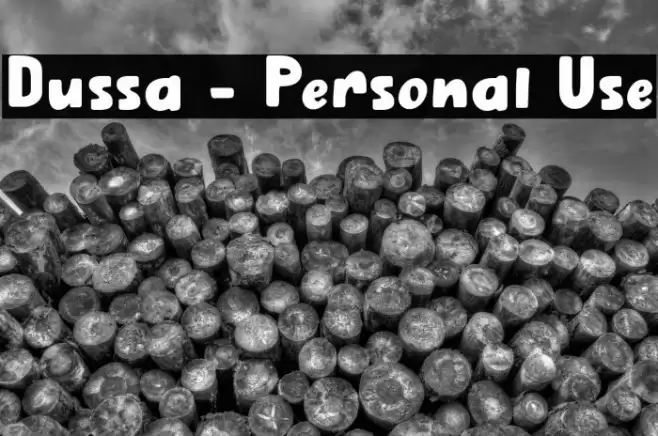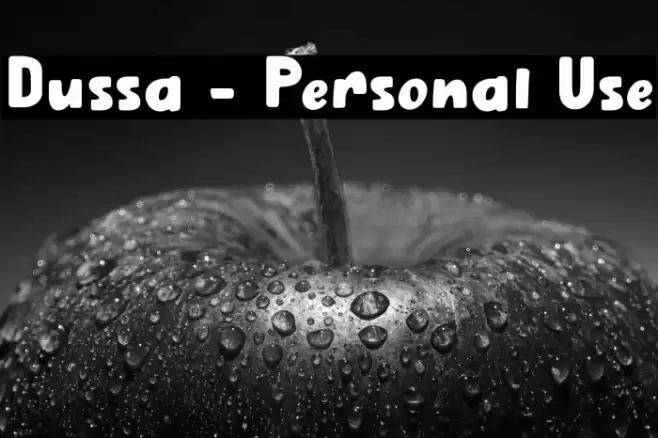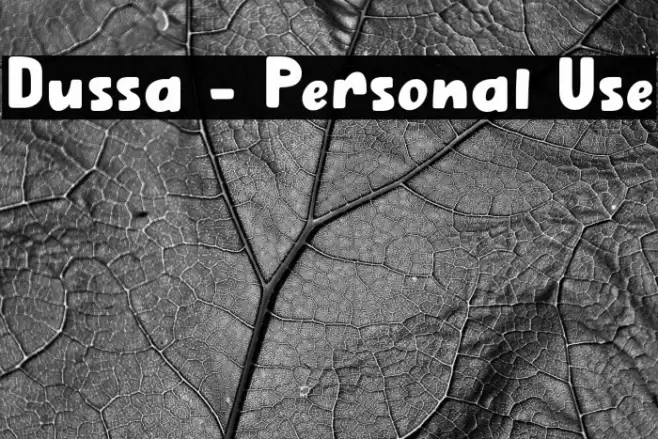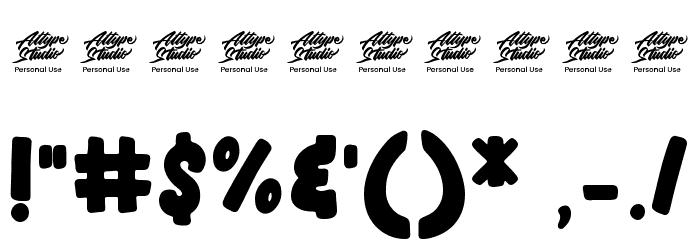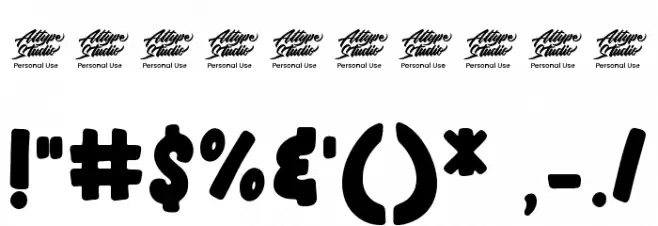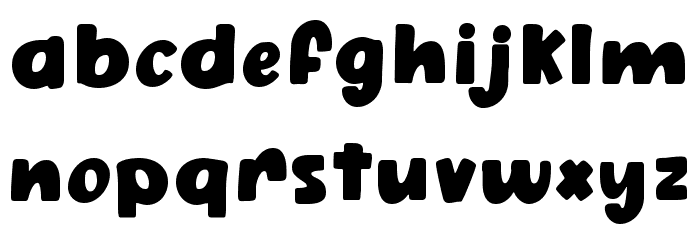
Dussa - Personal Use Font
Dussa - Personal Use Description
This font features a bold and playful design with rounded edges and a thick, uniform stroke. The characters are slightly condensed, giving them a compact appearance while maintaining readability. The uppercase and lowercase letters share a consistent style, with a whimsical touch that adds personality to the text. The numbers and special characters follow the same design principles, ensuring a cohesive look across all glyphs. This font is ideal for projects that require a fun and approachable aesthetic.
A bold, playful font with rounded edges and a whimsical style from Cartoon fonts.
- Proposed Projects: Ideal for children's books, playful branding, posters, and social media graphics.
- Overall Style: Playful, Fun